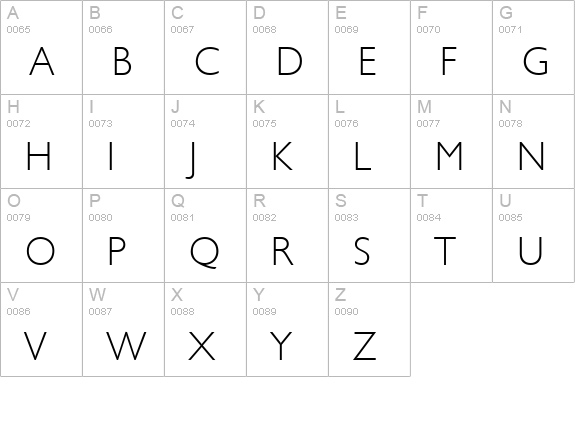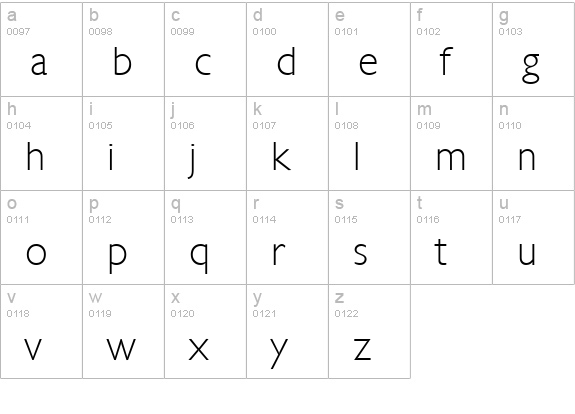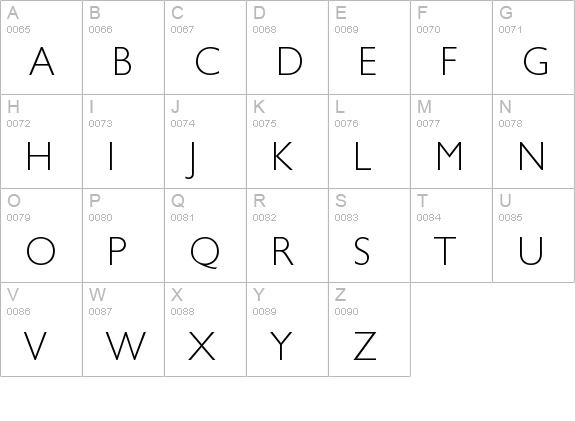
Stewardson Regular is the standard, neutral variant in the Stewardson typeface family \xE2\x80\x94 well suited to general body text, paragraphs, and standard typographic work.
Stewardson Regular font is a timeless and elegant typeface that exudes sophistication and professionalism. Its clean lines and classic design make it suitable for a wide range of projects, from branding to editorial design. The font's versatility allows it to be used in both digital and print mediums, ensuring a consistent and polished look across all applications. What sets Stewardson Regular font apart is not only its aesthetic appeal but also its accessibility. This high-quality font is available for free download at FontsMarket.com, making it an excellent choice for designers looking to elevate their work without breaking the bank. Whether you're a seasoned professional or a budding creative, Stewardson Regular font is sure to add a touch of refinement to your designs.